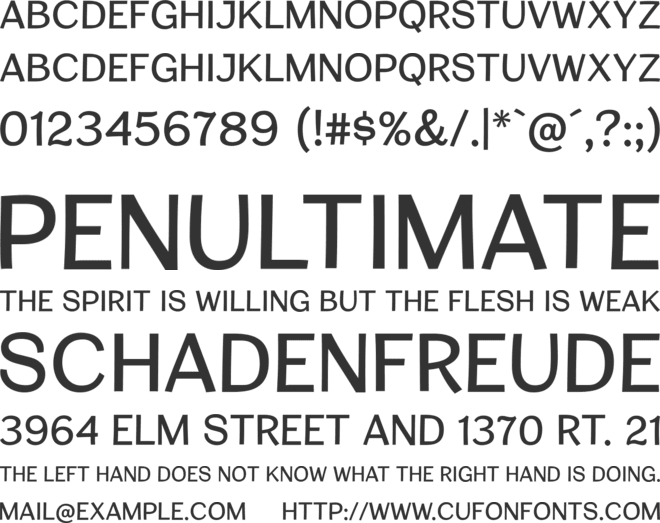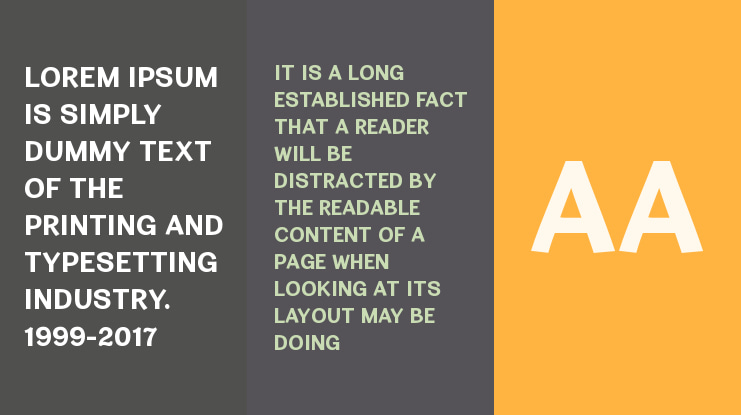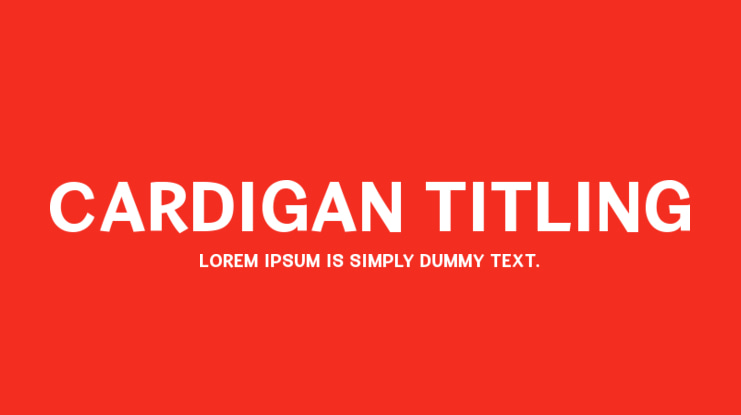
Cardigan Titling Font Family
Cardigan is casual sans-serif typeface. While the line treatment is nonchalant, letterforms are clear and conventional making it one of those rare casual typefaces that perform well in large bodies of text. The italics are more naturalistic than the uprights but practical; not show-offish. Cardigan is available is 3 weights plus italics. For a version of Cardigan with lowercase, check out the regular Cardigan family.